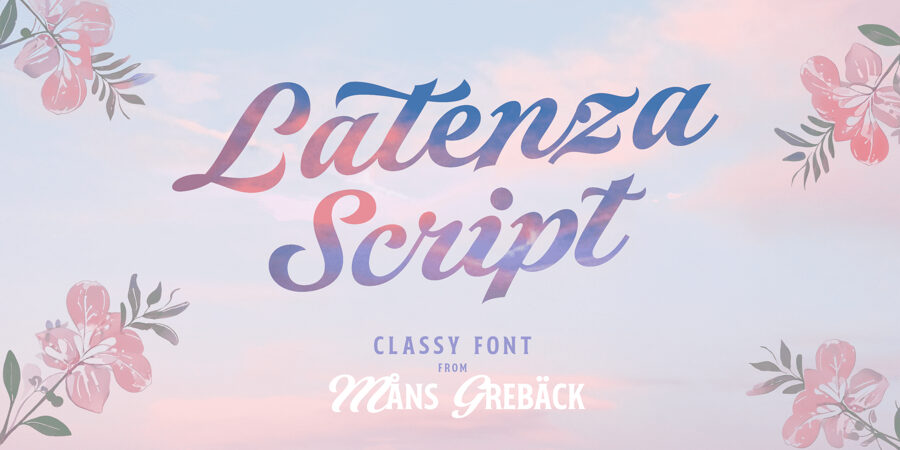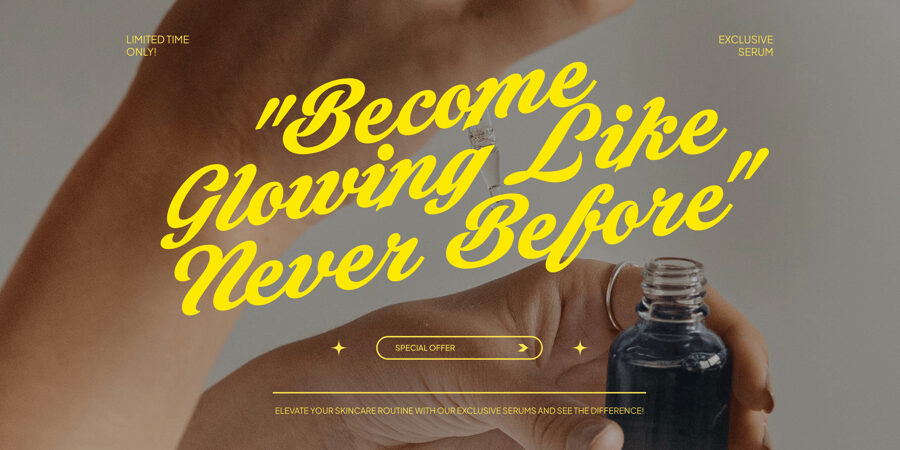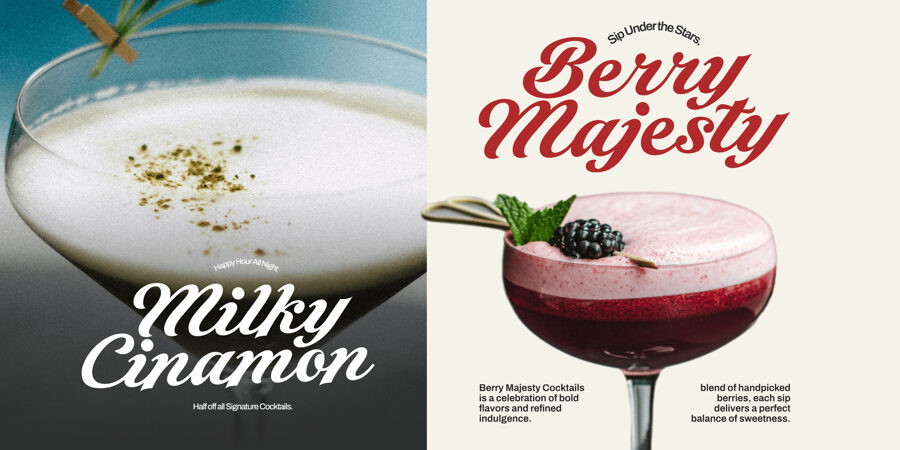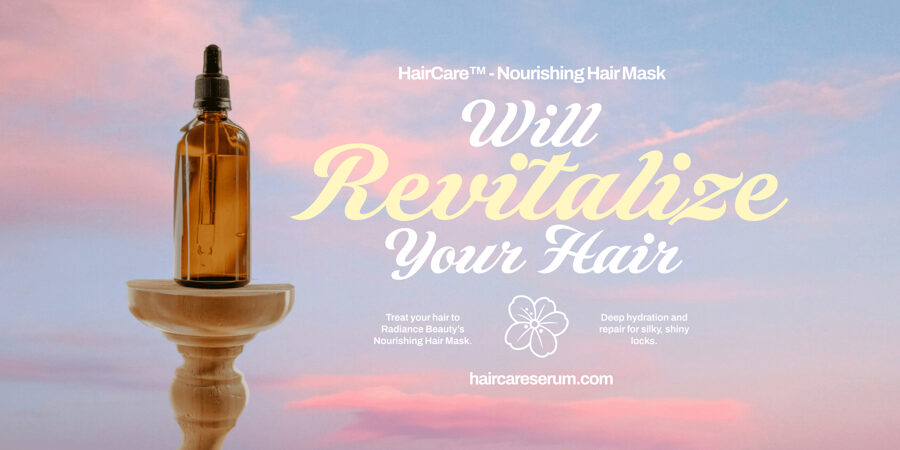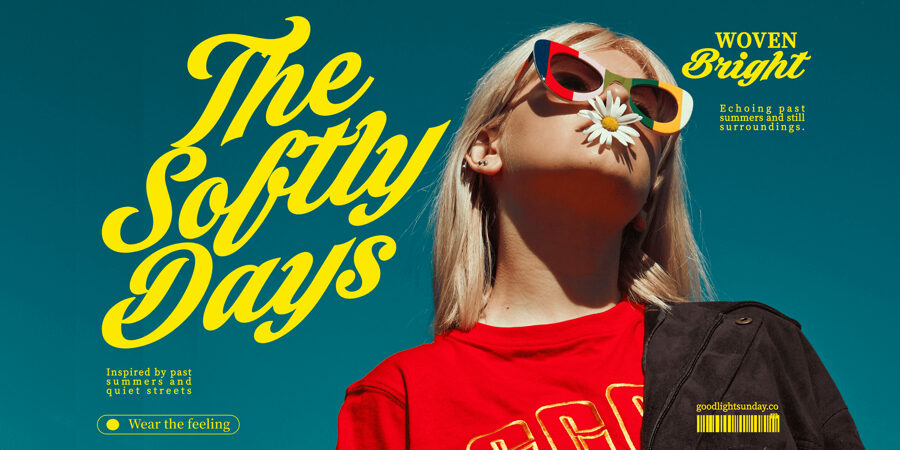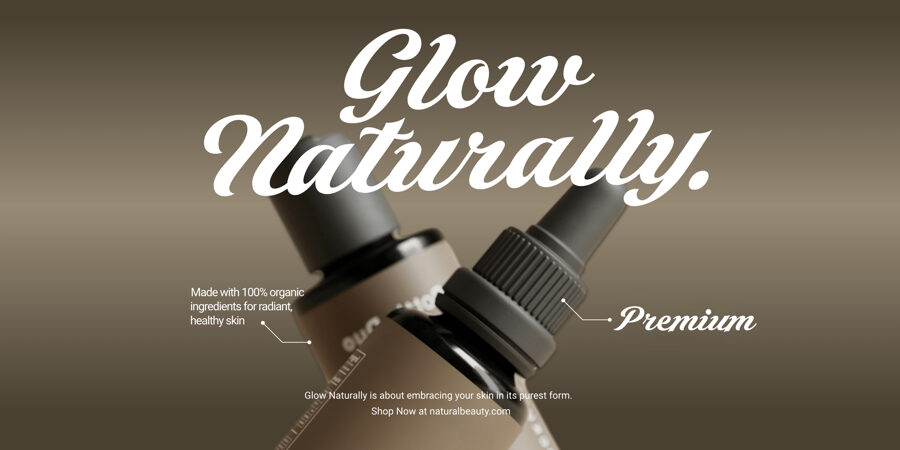
Latenza Script is a flowing calligraphic script with a soft, composed rhythm. The letters move with long strokes and gentle turns, giving the text a calm confidence rather than a loud flourish.
It carries a classic feeling, but with relaxed proportions that make it feel natural and contemporary. The connections are smooth and intentional, allowing words to breathe while still holding together as a unified line.